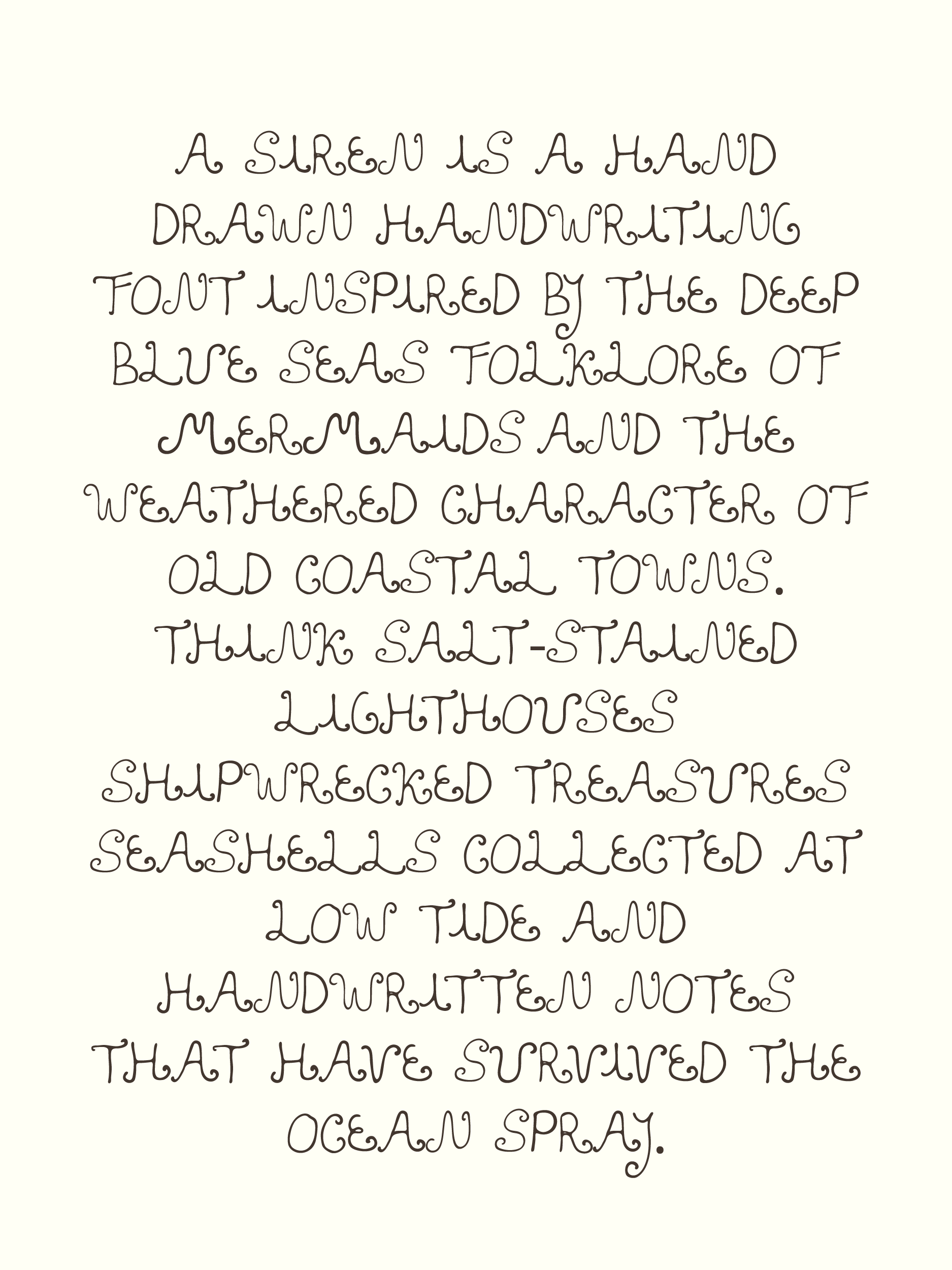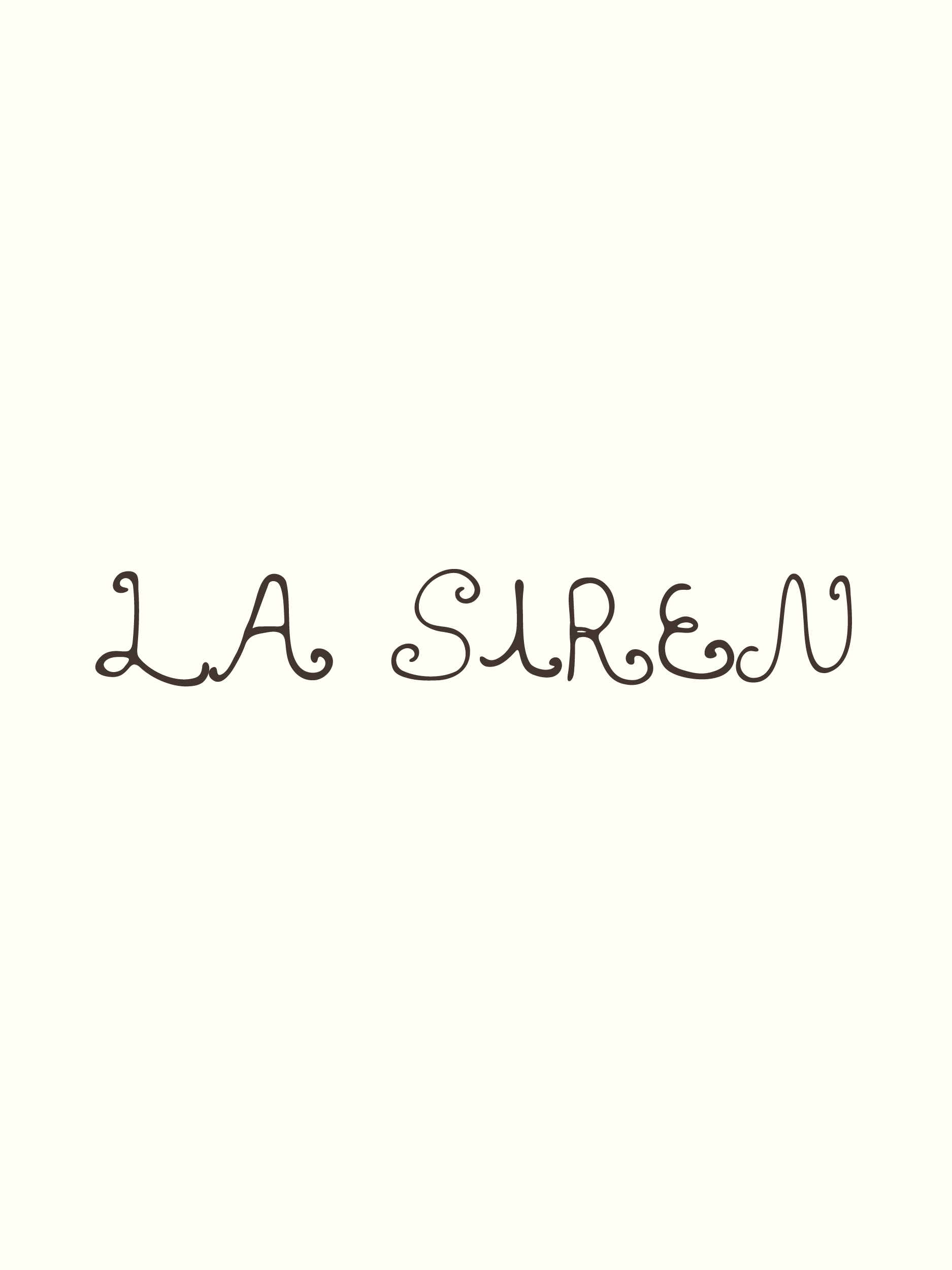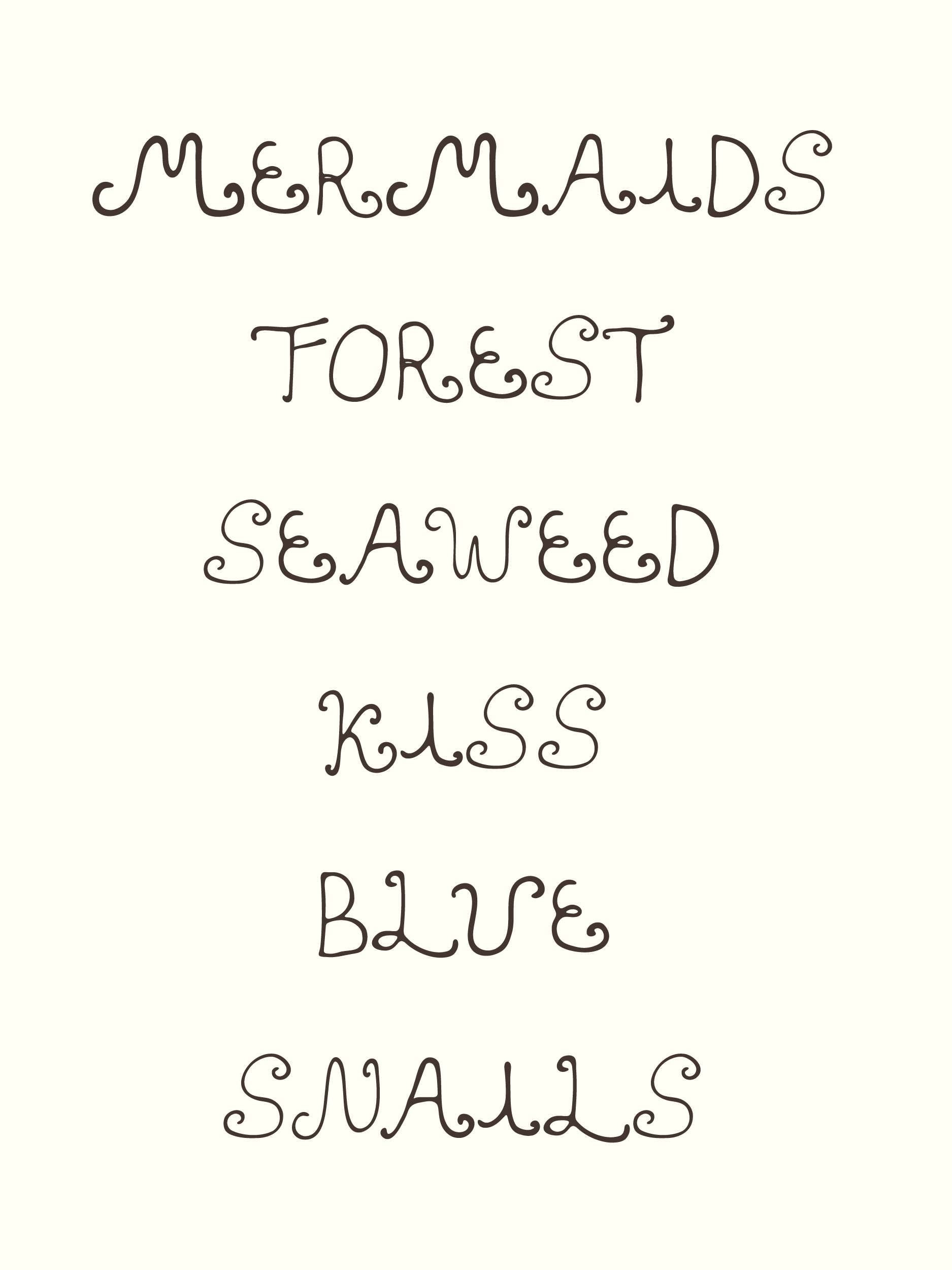
La Siren | Hand Drawn Font
La Siren is a hand-drawn handwriting font born from the deep blue, carrying with it the myths of mermaids and the shadows of old coastal towns. It feels like something pulled from the sea — salt-worn lighthouses, forgotten shipwrecks, seashells gathered at low tide, and letters smudged by ocean spray.
Nothing about it is perfect — its strokes shift and waver, its shapes feel uneven, raw, and human. That’s where its charm lives: in the irregularity, the texture, the old-world wobble that makes every letter feel alive. It drifts between mystery and nostalgia, carrying a dark, cinematic edge, like an untold story washed ashore.
La Siren is also a starting point — an invitation to shape, distort, and create your own wordmarks and logos. It’s handwriting as artifact, something to push and play with, something that doesn’t sit still.
Letters A–Z (primarily lowercase with some alternates/caps)
Menus and wine lists with a moody, hand-crafted feel
Logos that want to channel coastal folklore or folk art imperfection
Wordmarks with grit, wobble, and personality
Editorial layouts, posters, and zines with oceanic or cinematic atmosphere
La Siren isn’t clean. It’s sea-washed, weathered, and a little eerie — a font that carries the tide with it.